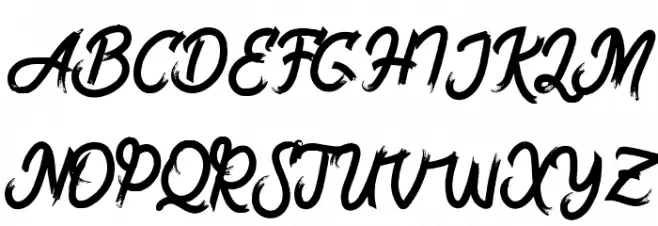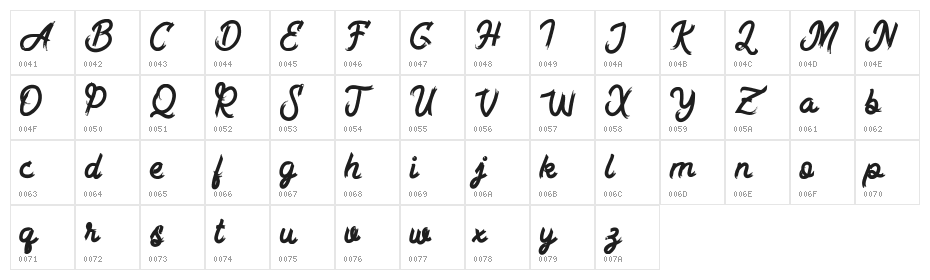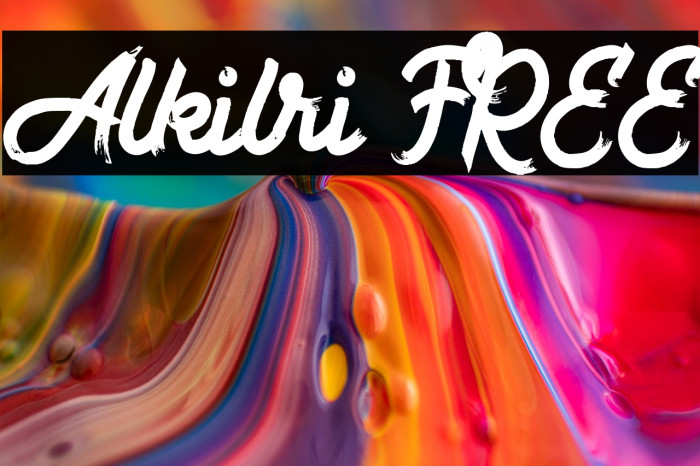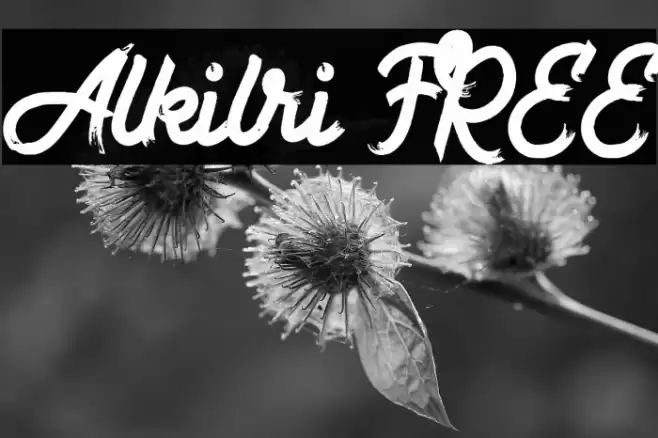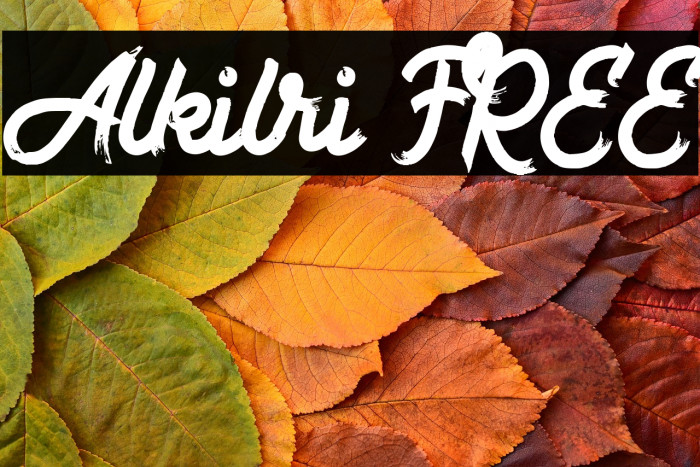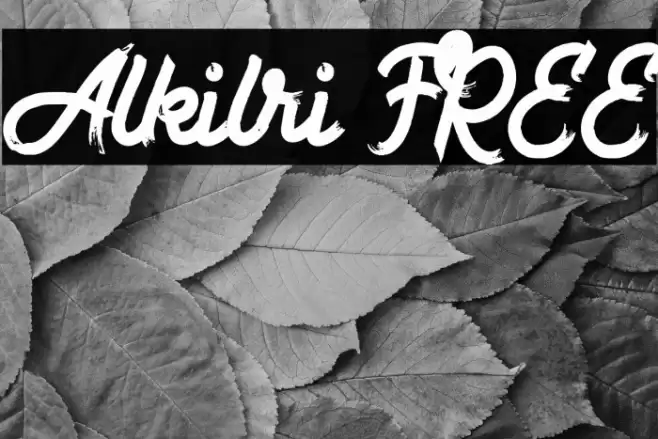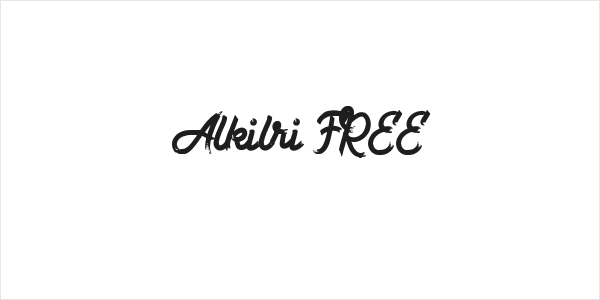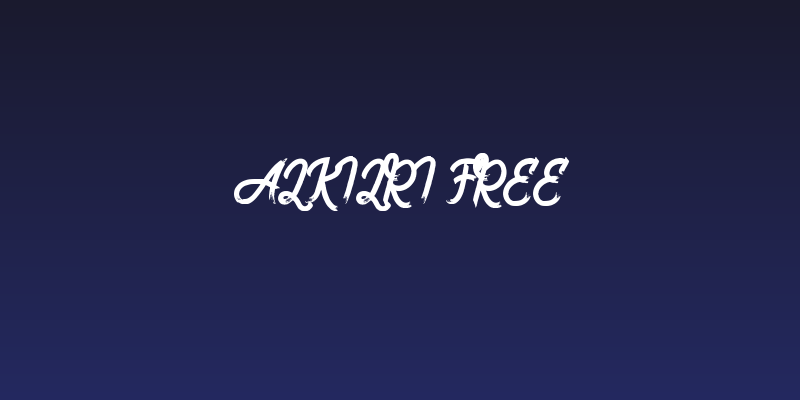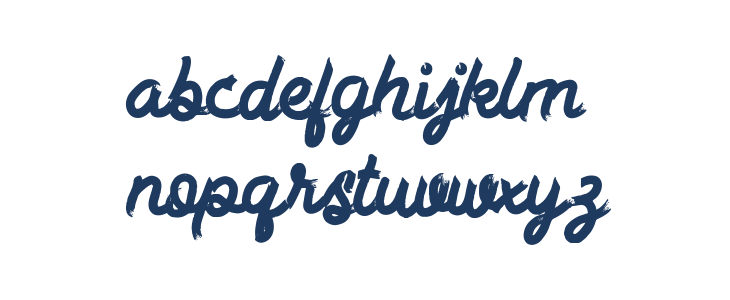
Alkilri FREE Font
Alkilri FREE Description
This font features a bold and expressive brush script style, characterized by its dynamic and flowing strokes. The letters are connected in a cursive manner, giving it a handwritten feel with a modern twist. The uppercase and lowercase letters maintain a consistent style, with some letters having unique flourishes that add to its artistic appeal. The numbers and special characters follow the same design, ensuring a cohesive look across all characters. This font is ideal for projects that require a personal touch or a creative flair.
| Proposed Projects | Ideal for branding, logos, invitations, posters, and creative projects that require a personal touch. |